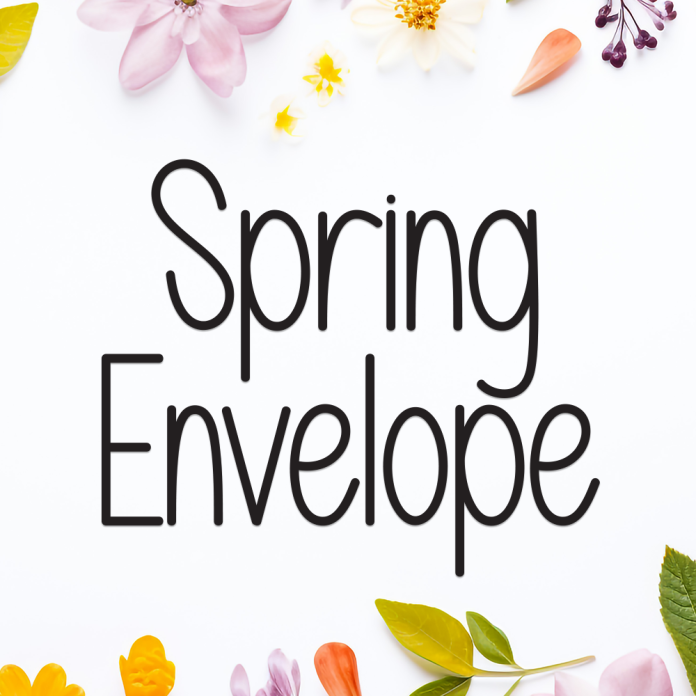
Spring Envelope is a cheerful and whimsical display font inspired by blooming flowers, handwritten notes, and the joy of springtime. Its soft curves and friendly design make it perfect for invitations, greeting cards, seasonal branding, and playful design projects.
Display style with a light and joyful personality
Ideal for spring-themed designs, packaging, kids’ projects, and DIY prints
Hand-drawn look with smooth, organic strokes
Send a fresh and heartfelt message with Spring Envelope – where every letter feels like a gentle breeze of spring.